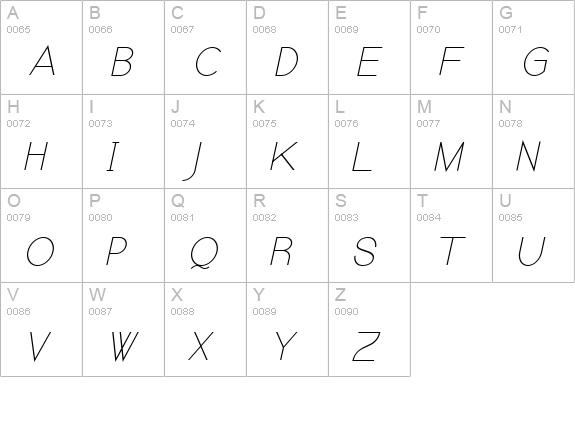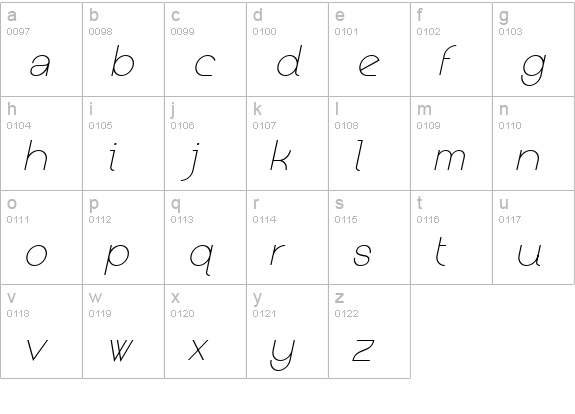
Kerater UltraLight Italic Font Details
Kerater UltraLight Italic is an airy, ultra-refined, italic variant in the Kerater typeface family \xE2\x80\x94 well suited to minimalist headlines and refined display use.
Introducing Kerater UltraLight Italic, a font that effortlessly combines elegance and modernity. This font is the perfect choice for those seeking a sleek and sophisticated design with a touch of creativity. With its delicate and refined letterforms, Kerater UltraLight Italic exudes a sense of grace and beauty. Its slender and elongated strokes add a sense of fluidity and movement, making it an ideal choice for projects that require a touch of sophistication. Whether it's used in headlines, logos, or body text, this font captures attention and leaves a lasting impression. What sets Kerater UltraLight Italic apart is its versatility. From fashion magazines to luxury branding, this font effortlessly adapts to various design contexts, enhancing the overall visual appeal. Its italicized style adds a unique twist, conveying a sense of elegance and dynamism. But what makes Kerater UltraLight Italic even more appealing is its accessibility. This font is freely available to download at FontsMarket.com, making it a fantastic resource for both personal and commercial projects. Say goodbye to the limitations of expensive font licenses and embrace the freedom to create without boundaries. With Kerater UltraLight Italic, you have the power to elevate your designs to new heights. Its sleek and modern aesthetic, combined with its effortless legibility, makes it a must-have for any designer or creative professional. So why wait? Download Kerater UltraLight Italic today and unlock a world of design possibilities.